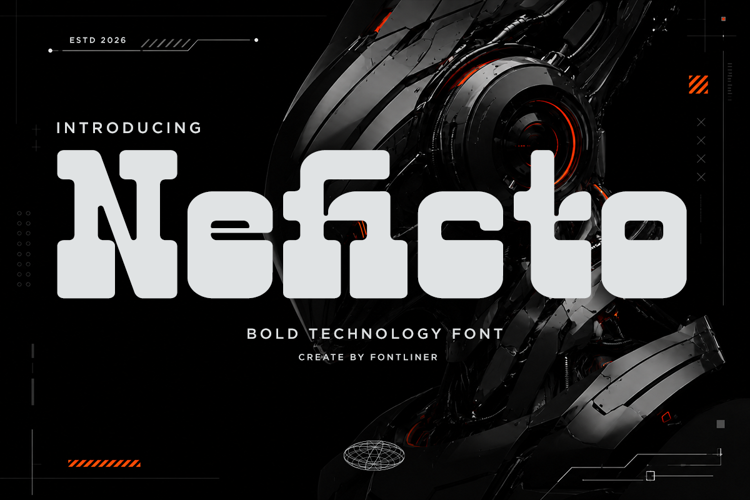
Neficto Font
Neficto is a big, bold western-style font by Fontliner, with thick blocky serifs straight off a Wanted poster or an old saloon sign. Made for anything cowboy or vintage — rodeo posters, BBQ joints, country branding, game logos. Note: the free demo doesn't include numbers or every letter, so check the character set before using it; the full version is available from the designer.